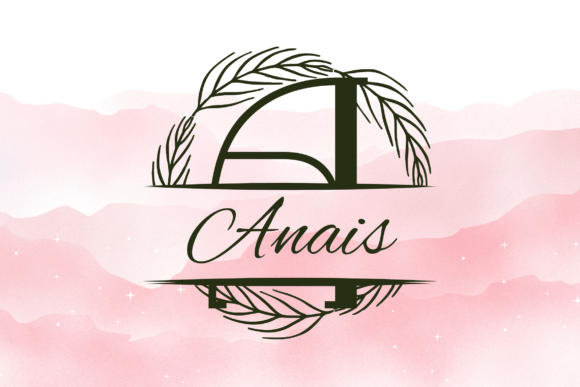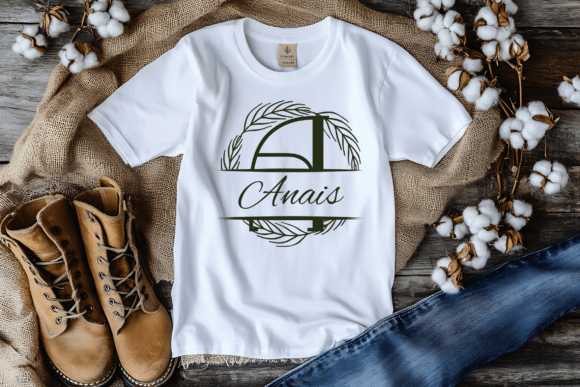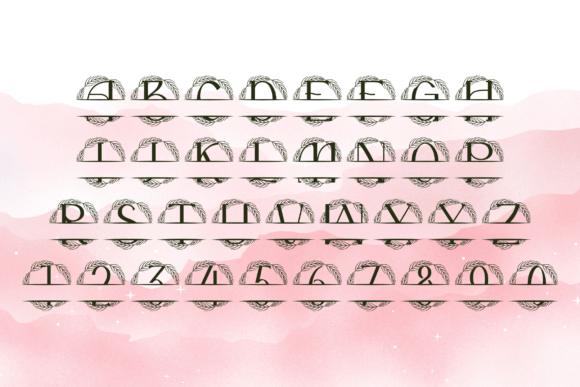
Introduction to Imperium Split Monogram Font
Imperium Split Monogram is a sophisticated and timeless serif split monogram font designed for high-end personalization and premium product branding.
Featuring an elegant split through each capital letter, this typeface lets you easily insert names, initials, or datesโmaking it perfect for weddings, corporate gifts, packaging, and creative Cricut or laser-cut projects If youโre searching for a regal and functional monogram font, this is the perfect match.
Key Features of Imperium Split Monogram Font
Why Choose Imperium Split Monogram Font?